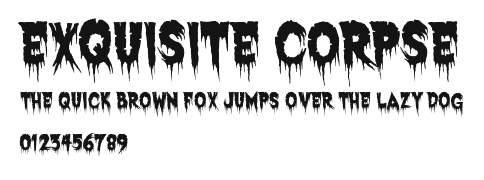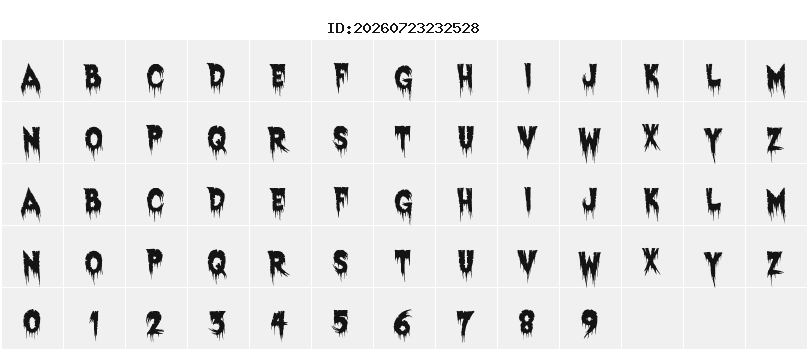
• Font Name: Exquisite Corpse
• Full Font Name: Exquisite Corpse
• Designer: Chad Savage
• Manufacturer: Sinister Fonts
• Description: I've never done a classic, Creepshow-style drippy horror font, really. So this is me doing that.